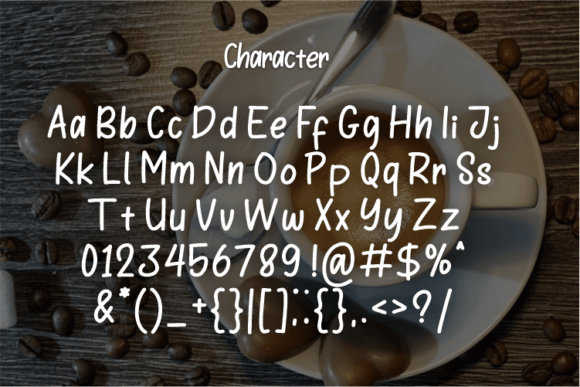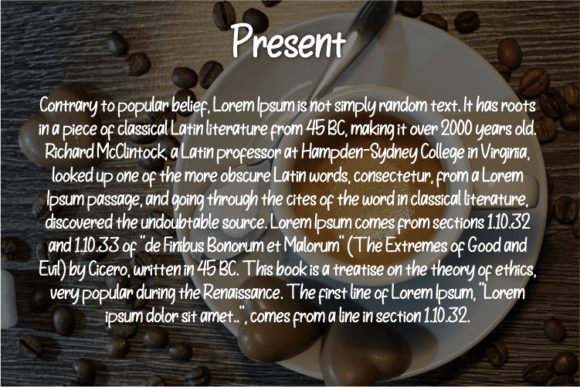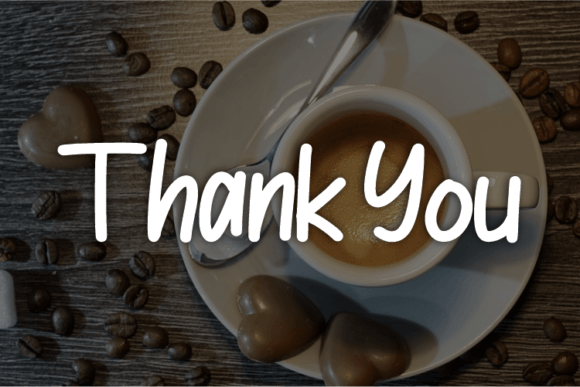
Introduction to Coffeshap Font
As a designer, have you ever found yourself stuck in a creative rut, searching for the perfect font to elevate your next project? Maybe you’re working on a high-end fashion brand and need a sophisticated script typeface to match your luxurious aesthetic. Or perhaps you’re crafting a beautiful book title that demands elegance and sophistication. Whatever your creative pursuit, the Coffeshap Font is here to inspire and guide you.
With its simple yet modern style, Coffeshap Font is the ultimate design resource for any project that requires a touch of sophistication and refinement. Whether you’re working on a logo, magazine, clothing design, or quote, this versatile font is sure to deliver high-quality results that exceed your expectations.
Key Features of Coffeshap Font
- High-quality, professional font design perfect for creative projects.
- Comes in a transparent background option, ideal for use on various backgrounds and designs.
- Features a unique and modern design, making it suitable for a wide range of creative projects, from branding to publishing.
Honest Review: Coffeshap Font
As a designer, I’m always on the lookout for high-quality design resources that can elevate my creative projects. The Coffeshap Font caught my attention, and I decided to give it a try.
- ✨ The font has a transparent background, allowing for seamless integration into any design.
- ✨ The font’s unique style and design make it perfect for creative projects that require a touch of elegance and sophistication.
- ⚠️ The font is only available in a limited number of weights and styles, which may limit its versatility.
Overall, I’m impressed with the Coffeshap Font’s design and functionality. While it has some limitations, it’s still a valuable resource for designers looking for a high-quality font for their creative projects.
The Coffeshap Font is ideal for creative projects such as logo design, branding, and advertising. It can also be used in social media graphics, presentations, and other visual content.